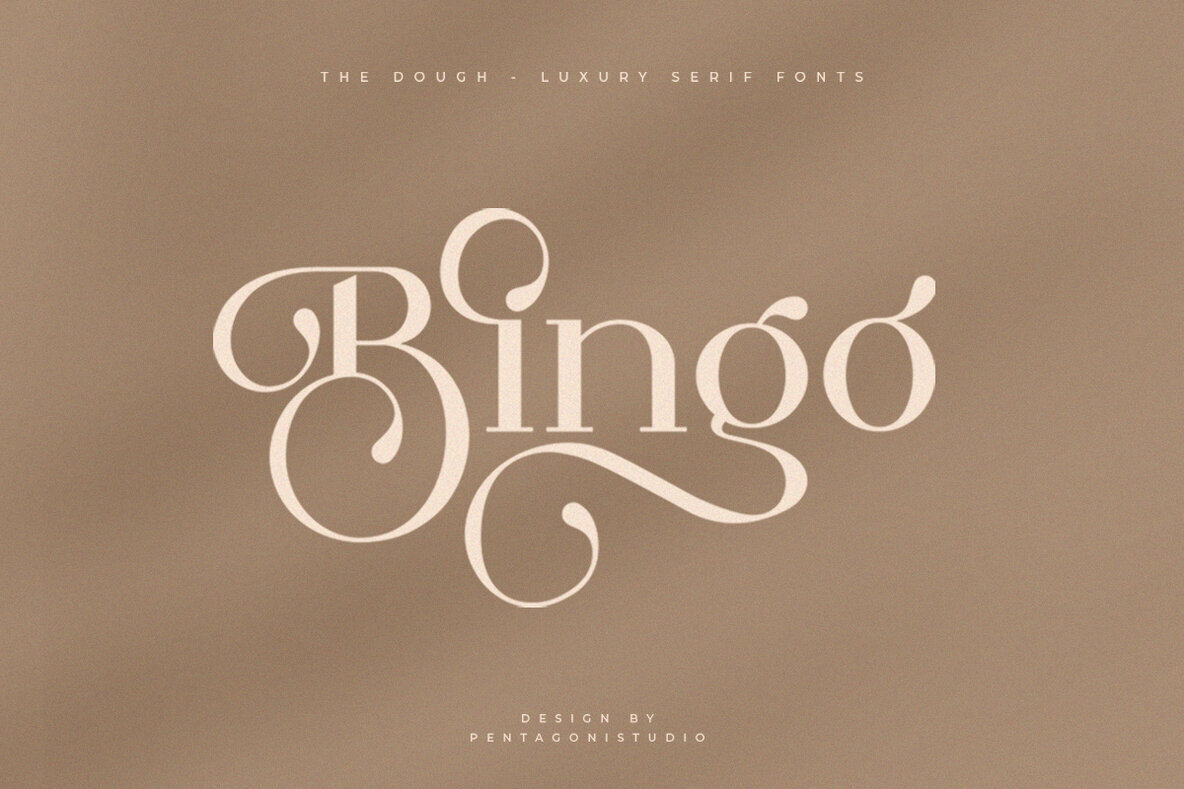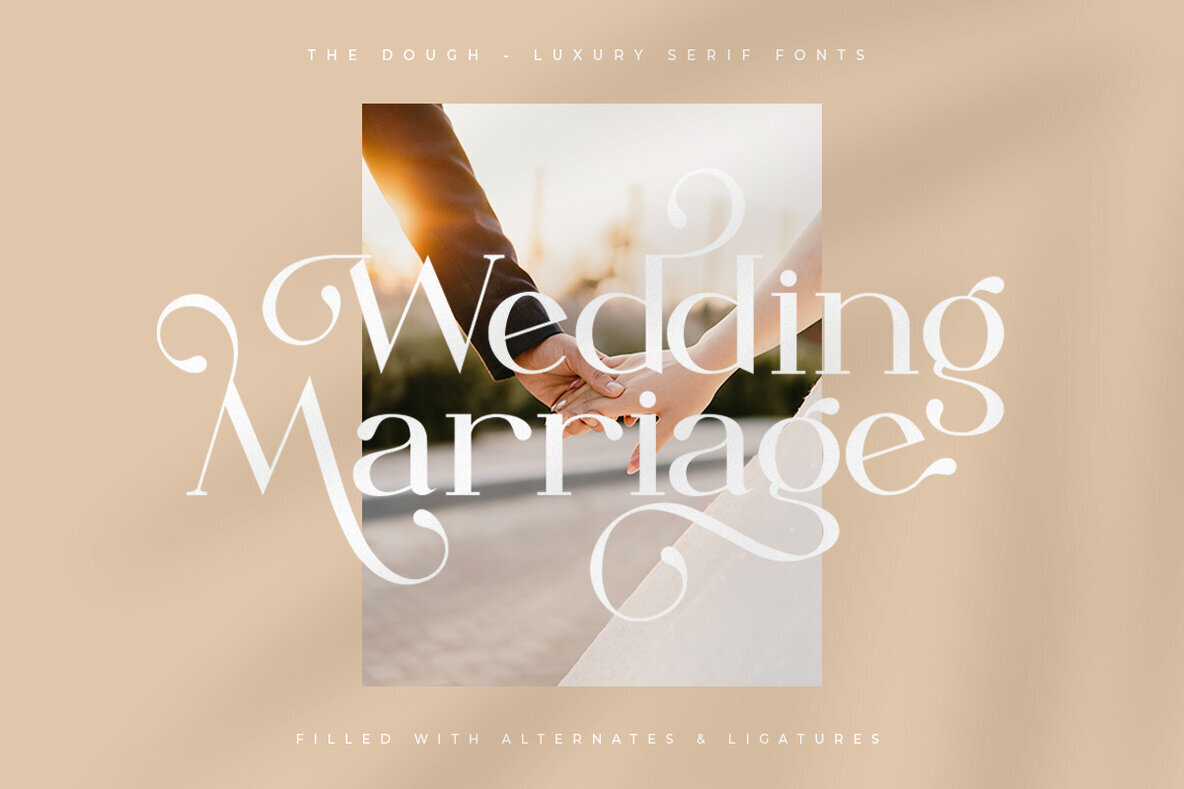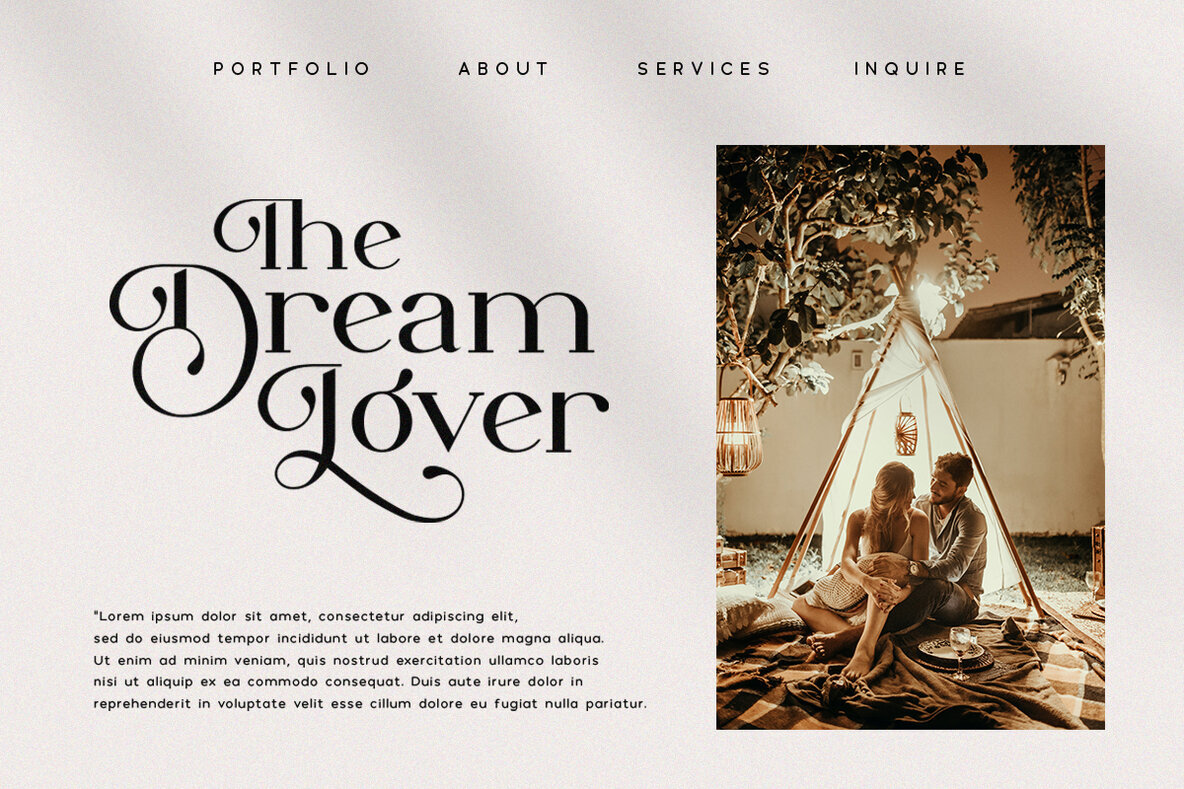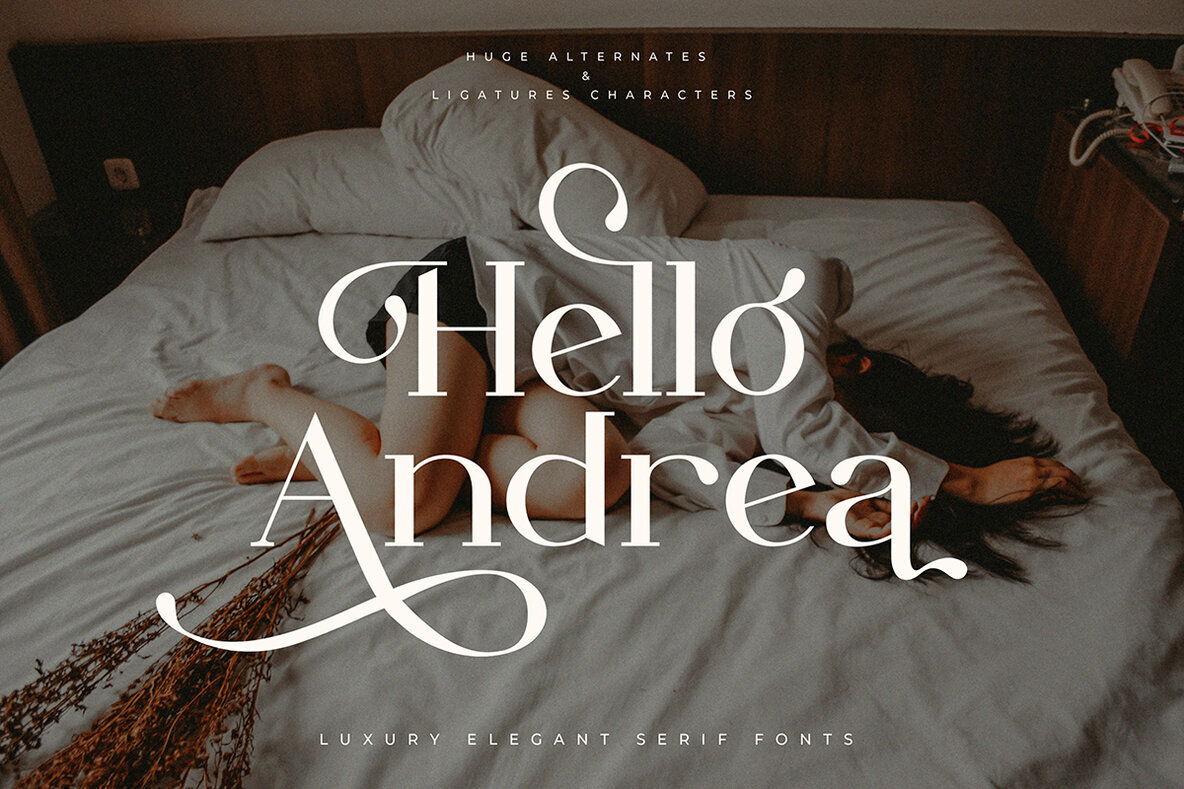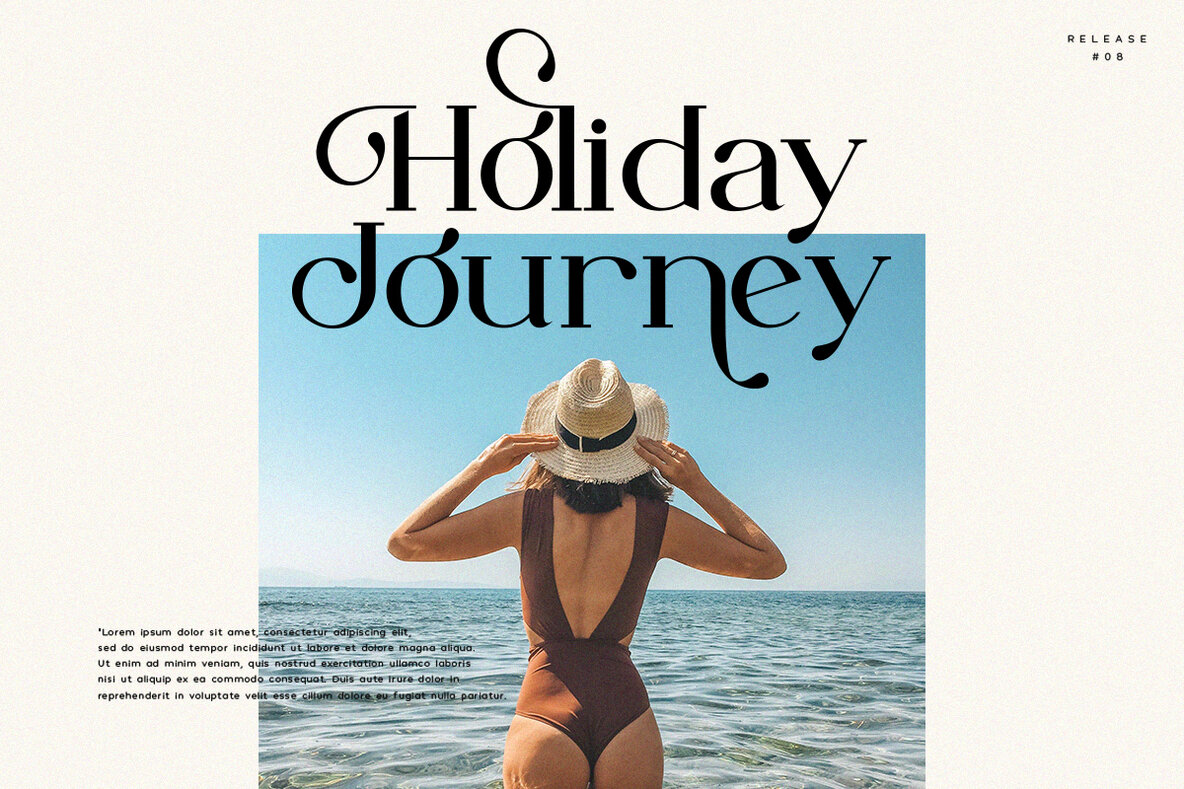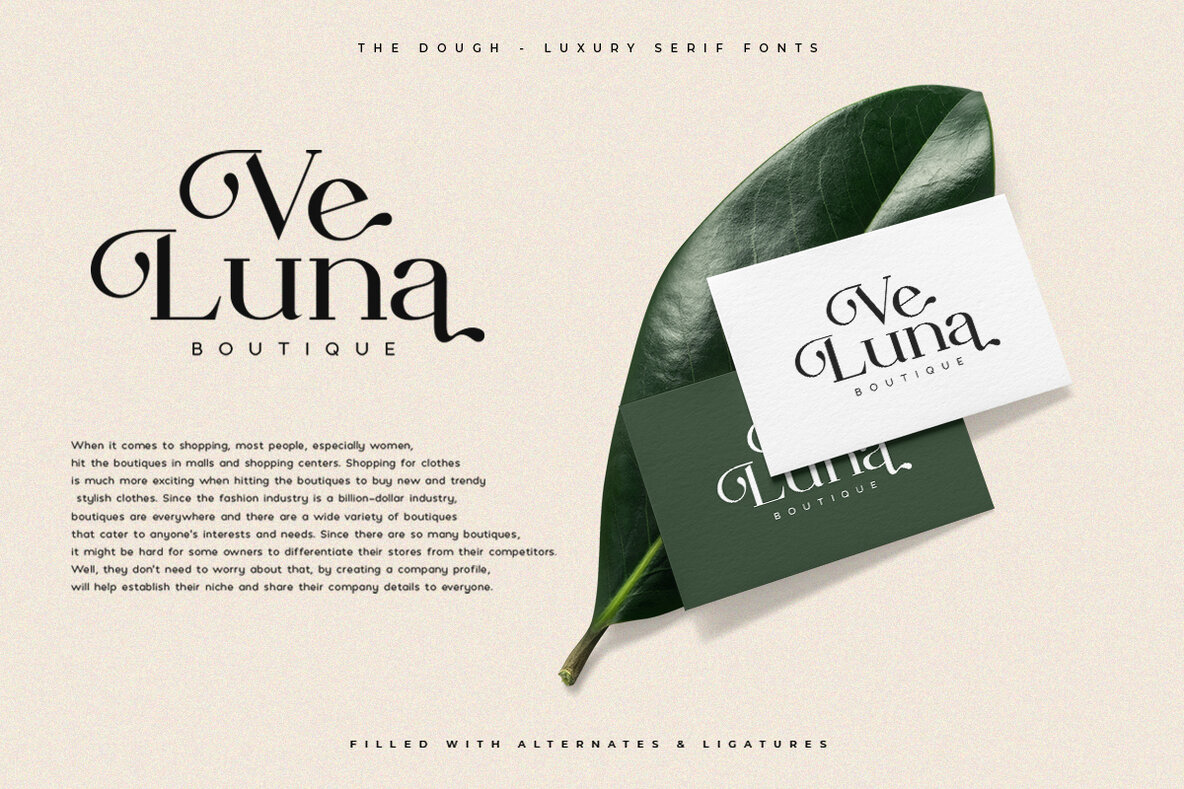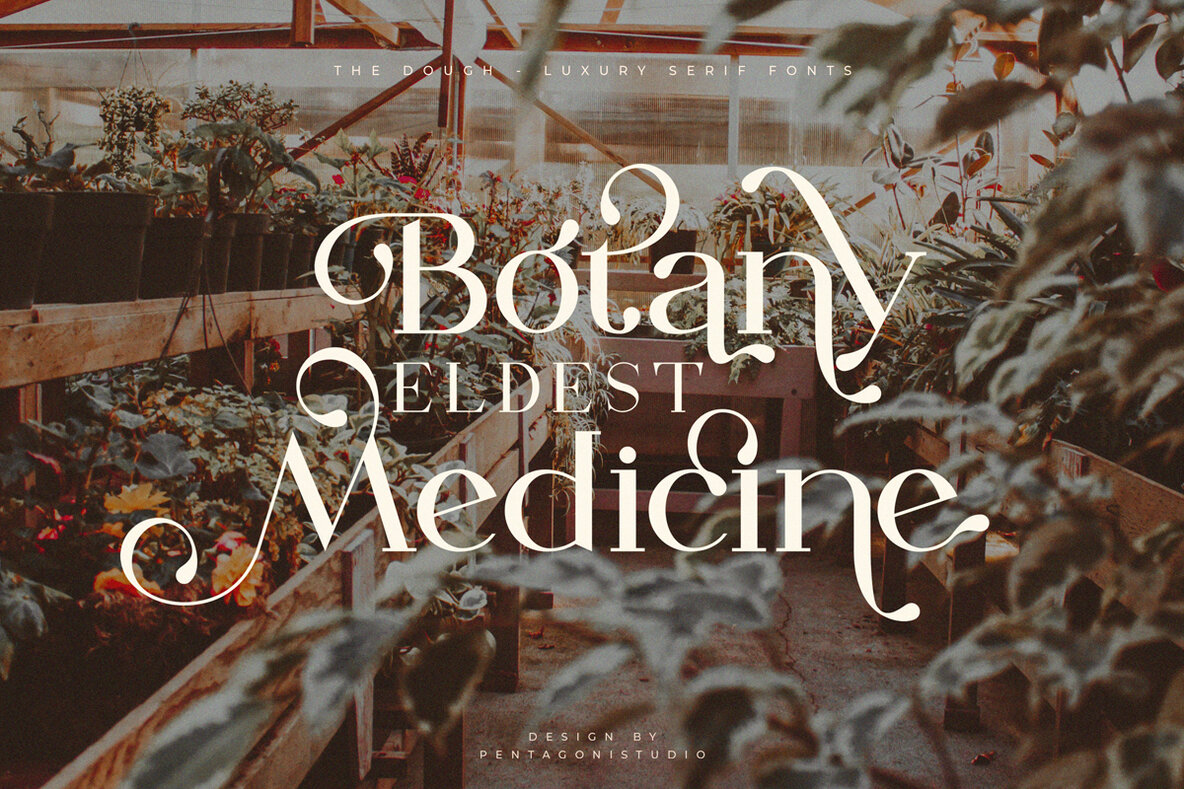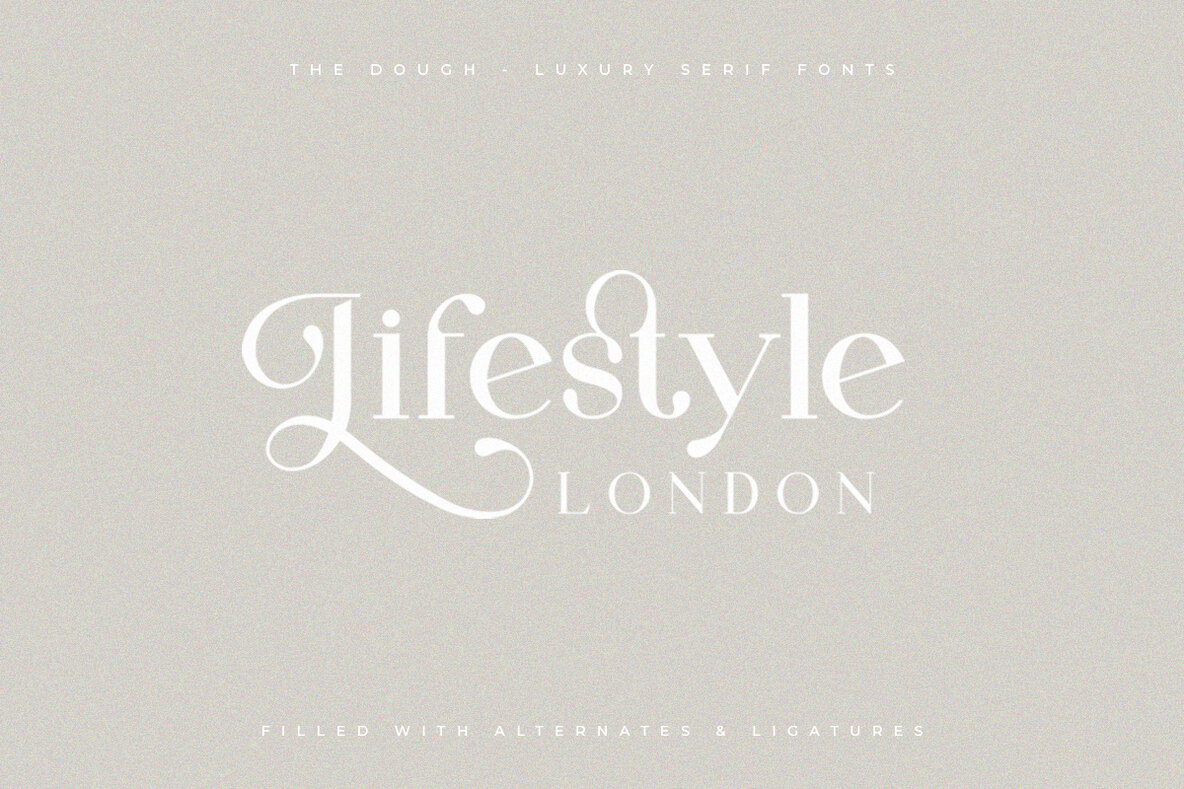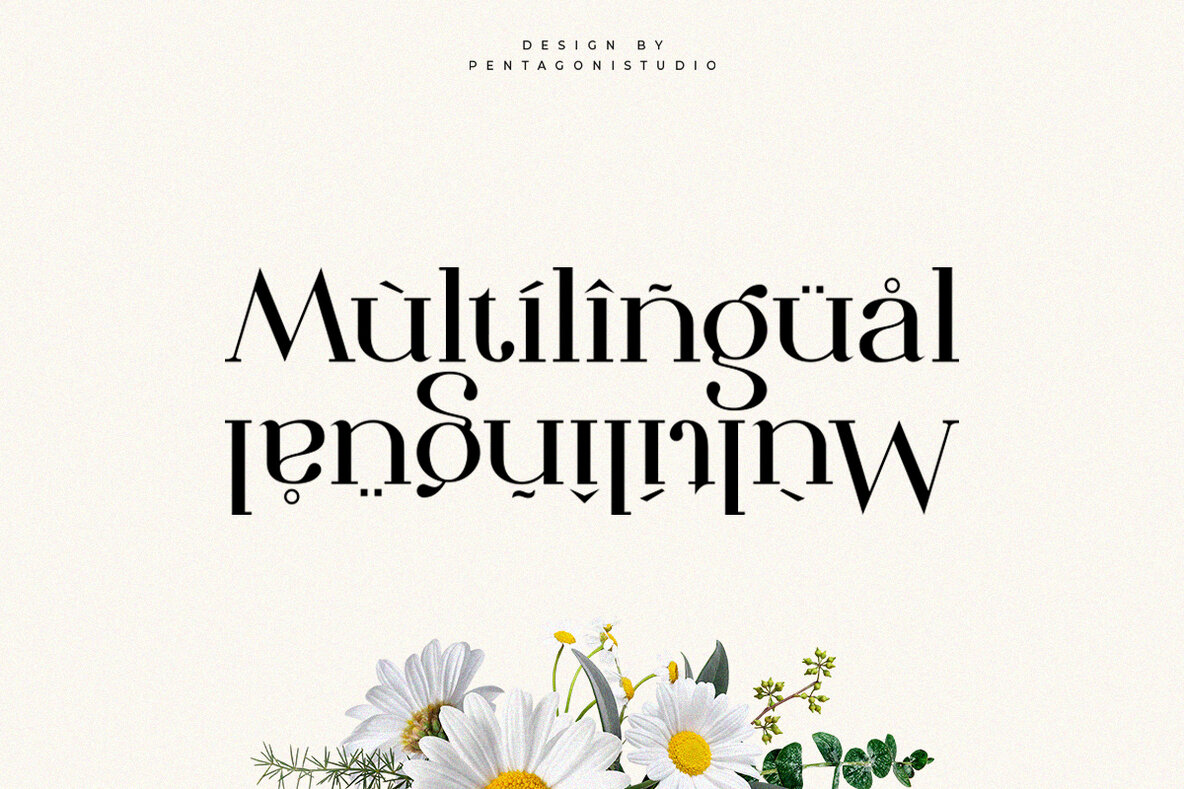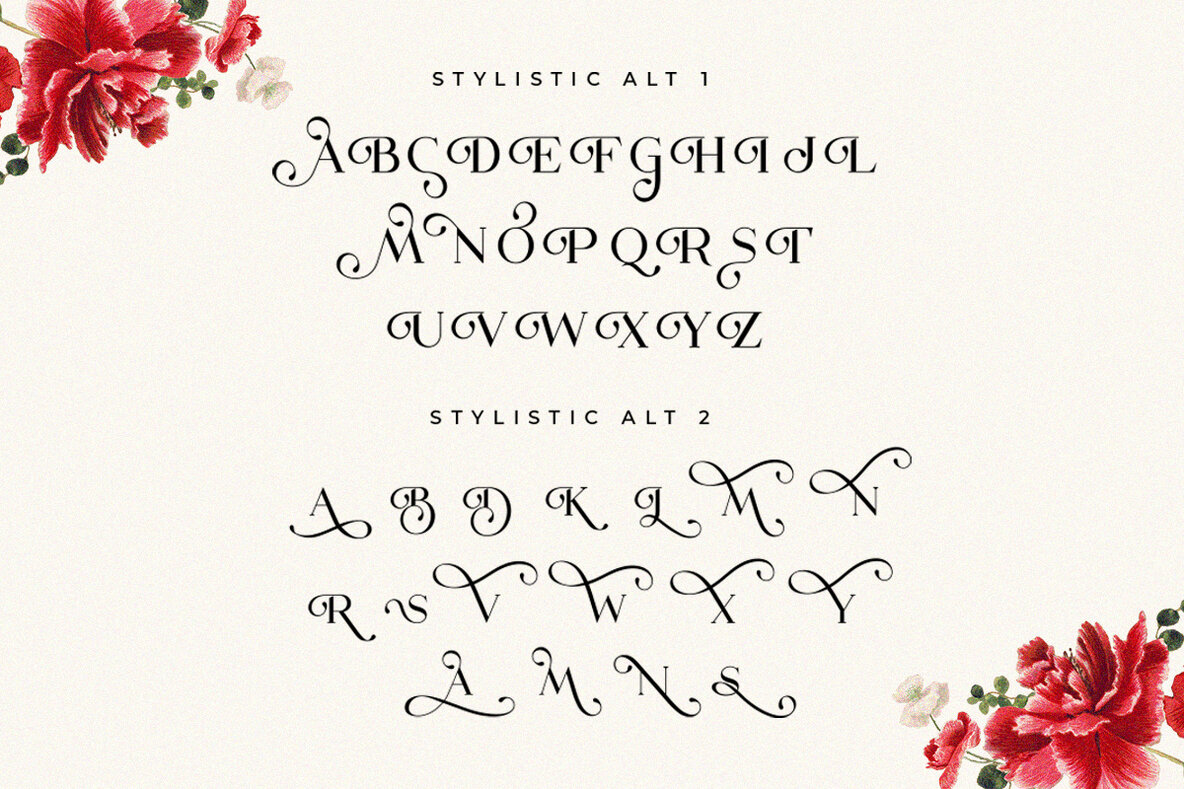
The Dough Font
The Dough
The Dough combines luxury and style in a versatile serif font, drawing inspiration from prestigious typefaces. This font offers designers a sophisticated tool for crafting striking visual identities and can seamlessly elevate any branding project.The Dough: Luxurious Serif With Refined Elegance